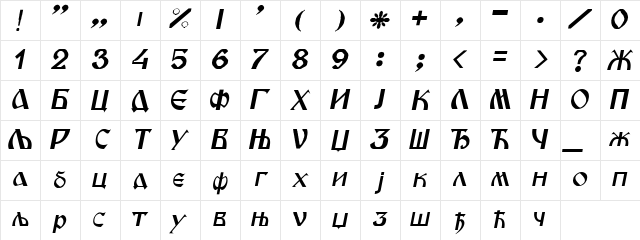
Yu C Miroslav Italic
Yu C Miroslav Family
Design Context for Yu C Miroslav
Yu C Miroslav is a composed and adaptable typeface that performs quietly and consistently across a wide range of design contexts. The slanted form adds forward momentum and visual energy.
Pro Tip: Use Yu C Miroslav for emphasis, pull quotes, and subheadings where its slanted energy can add rhythm to the layout.